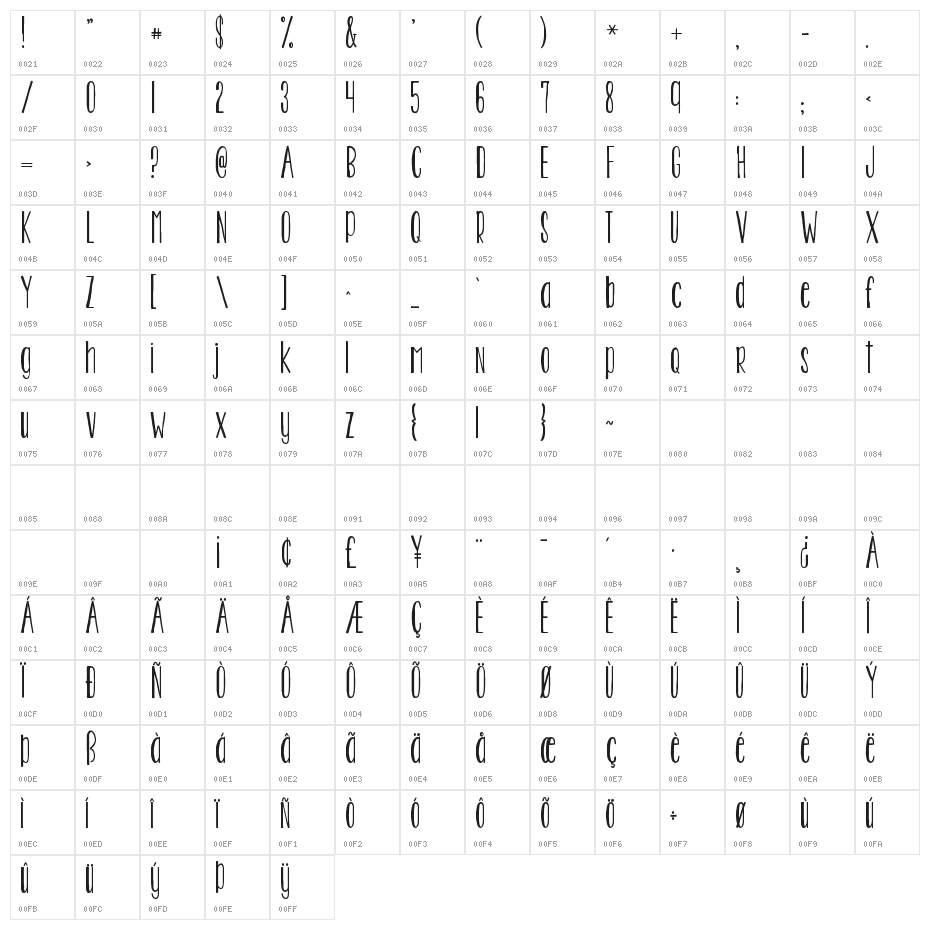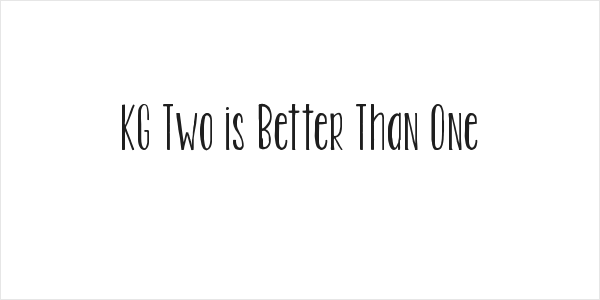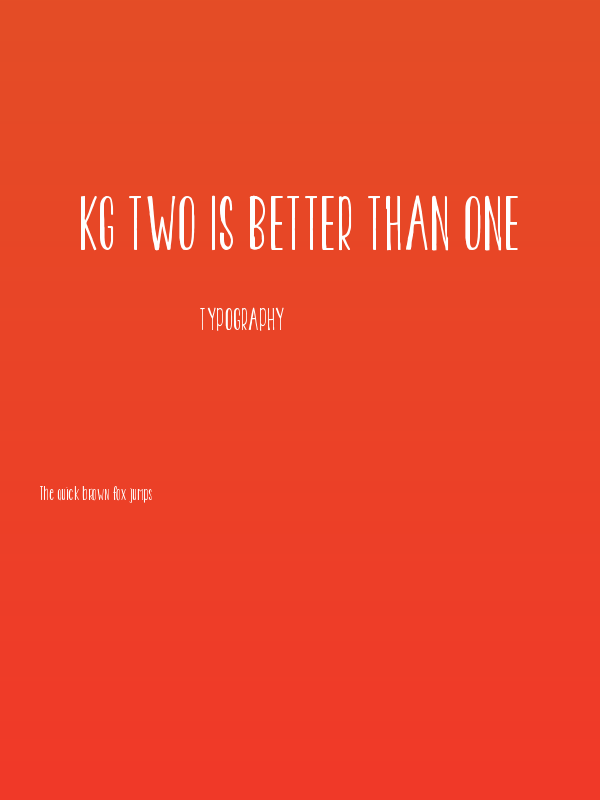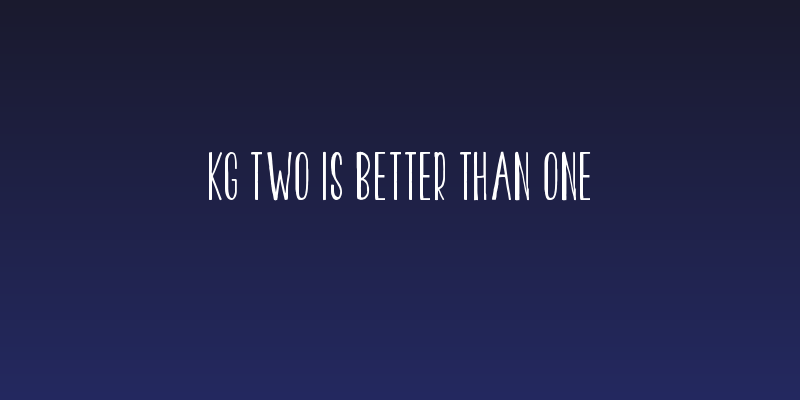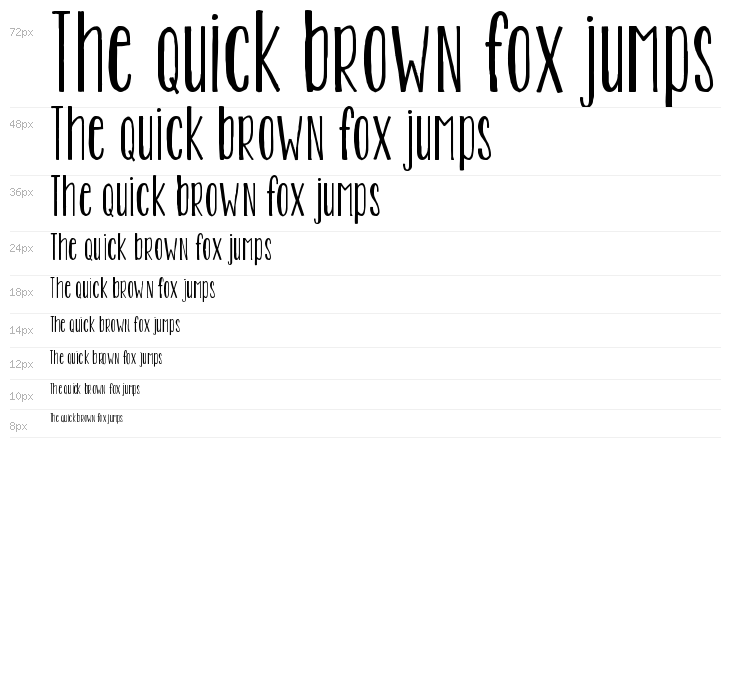
KG Two is Better Than One Font
KG Two is Better Than One Description
This font features a playful and whimsical style with tall, narrow characters that convey a sense of fun and creativity. The uppercase letters are elongated and slightly irregular, giving them a hand-drawn appearance. The lowercase letters maintain the same playful aesthetic, with some characters having unique flourishes. The numbers are consistent with the overall style, offering a quirky yet readable design. Special characters are included, maintaining the same whimsical feel. This font is ideal for projects that require a touch of personality and charm.
| Overall Style | Whimsical, Playful |
| Proposed Projects | Ideal for children's books, playful branding, greeting cards, and creative posters. |